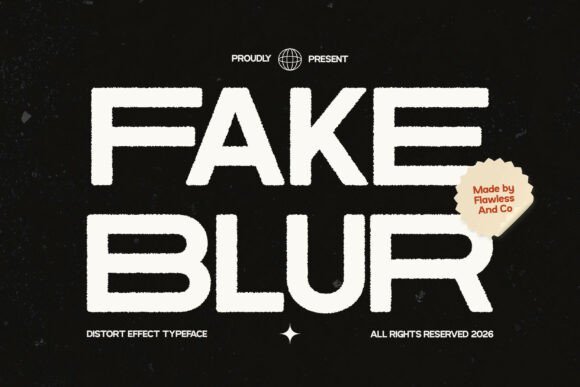
Introduction to Fake Blur Font
Fake Blur is a modern distort effect sans serif typeface designed to create a bold sense of motion and visual illusion.
With its unique blurred and distorted letterforms, this font delivers a dynamic and experimental look that instantly grabs attention The glitch-like effect adds depth and movement, making it perfect for designs that push creative boundaries.